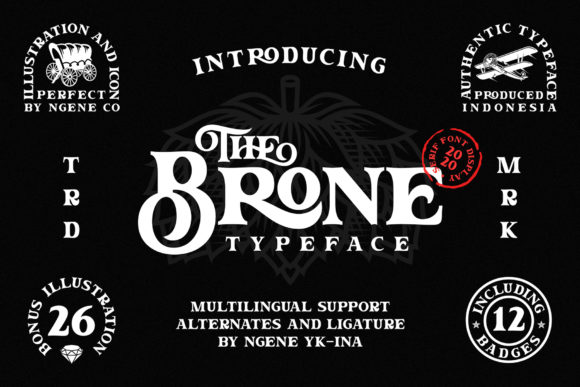
Introducing The Brone Font, a serif font family that brings a touch of nostalgia and a dash of vintage charm to your digital creations. Crafted by the talented Ngene, this remarkable font oozes personality and is specifically tailored to capture the essence of Asian cuisine.
Unleash the timeless elegance of Brone, a font that harkens back to the golden age of print advertising and evokes a sense of warmth and familiarity. Its playful, yet refined, curves dance across the page, creating an atmosphere of nostalgia and longing for simpler times.
With Brone, your designs will exude an aura of authenticity and tradition, reminiscent of family-run restaurants and cozy ramen shops. Each character carries a story, inviting your audience on a culinary journey through time.
The Brone Font is not just a collection of glyphs; it's an experience. Its meticulously crafted details and subtle nuances breathe life into your words, making them sing with a unique and unforgettable rhythm. Indulge your senses in the beauty of Brone and let your designs tell a story that lingers in the memory.
Embrace the Brone Font and embark on a creative adventure where nostalgia meets innovation. Whether you're designing menus, posters, branding, or social media graphics, Brone will elevate your work to new heights of sophistication and charm.